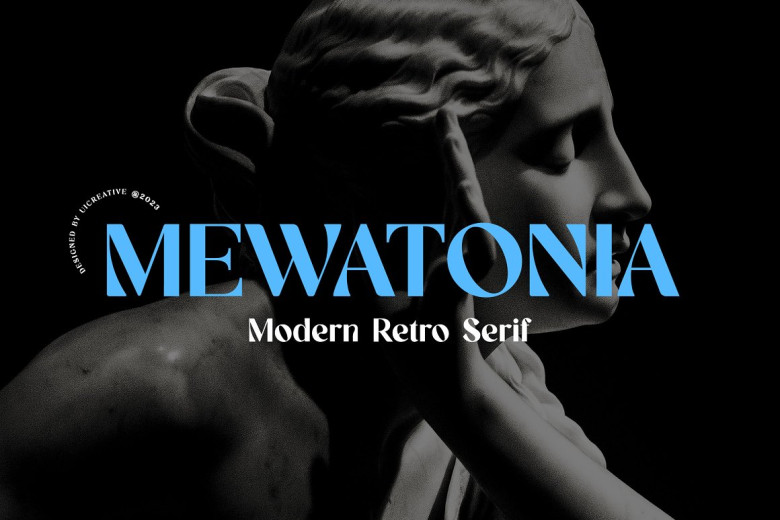
Mewatonia Font
Mewatonia is a retro modern serif typeface. It exudes classy elegance and modernism and can be used for various projects such as signatures, stationery designs, wedding invitations, typography wedding typography book or magazine covers website headers clothing fashion-related branding and editorial design which displays both masculine and feminine attributes.
Mewatonia Serif Font